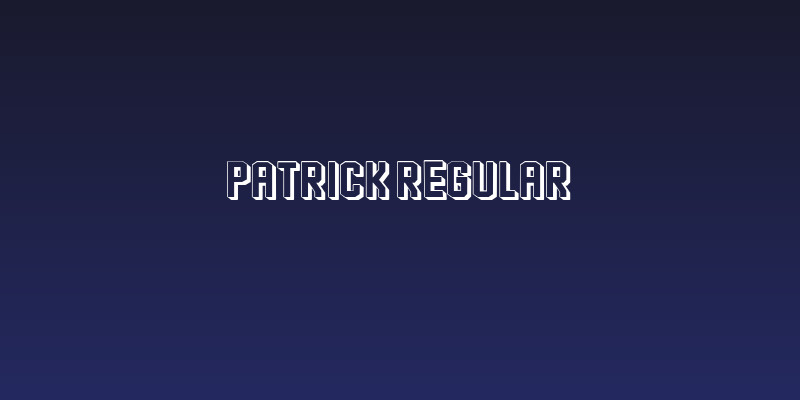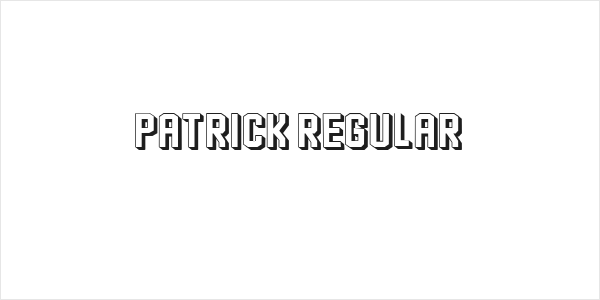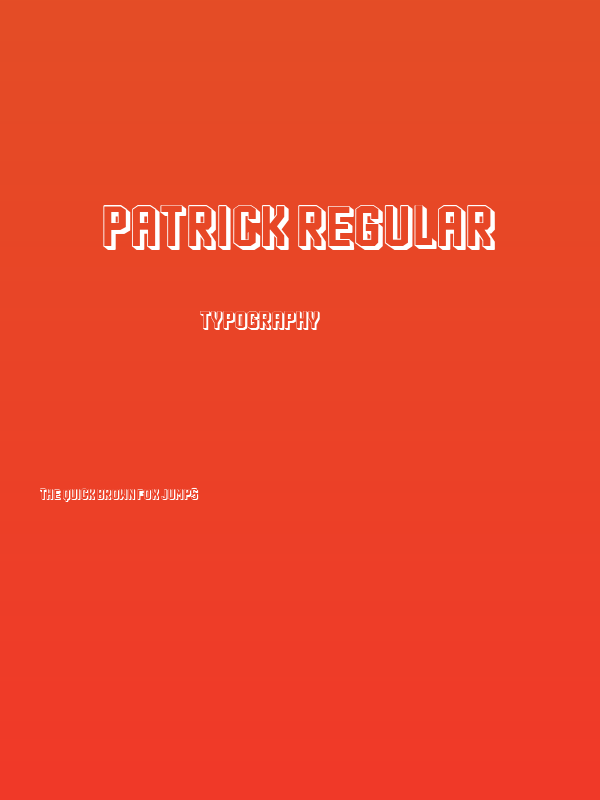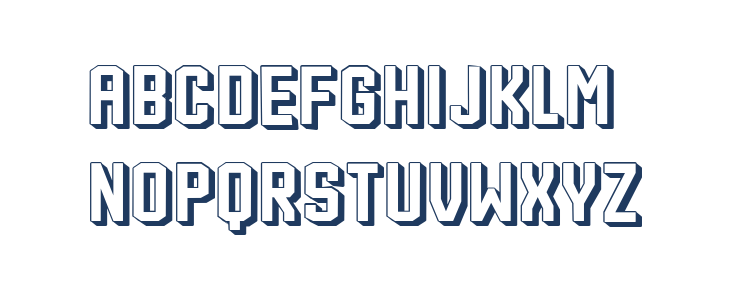
Patrick Regular Font
Patrick Regular Description
This font features a bold, three-dimensional appearance with a strong, geometric structure. The characters are outlined with a shadow effect, giving them a sense of depth and dimension. The uppercase letters are uniform in height and width, creating a cohesive and balanced look. The numbers and special characters maintain the same bold style, ensuring consistency across all elements. The font's design is eye-catching and ideal for making a statement, with its blocky and robust form that commands attention.
| Proposed Projects | Ideal for posters, headlines, logos, and any design project that requires a bold and impactful typeface. |